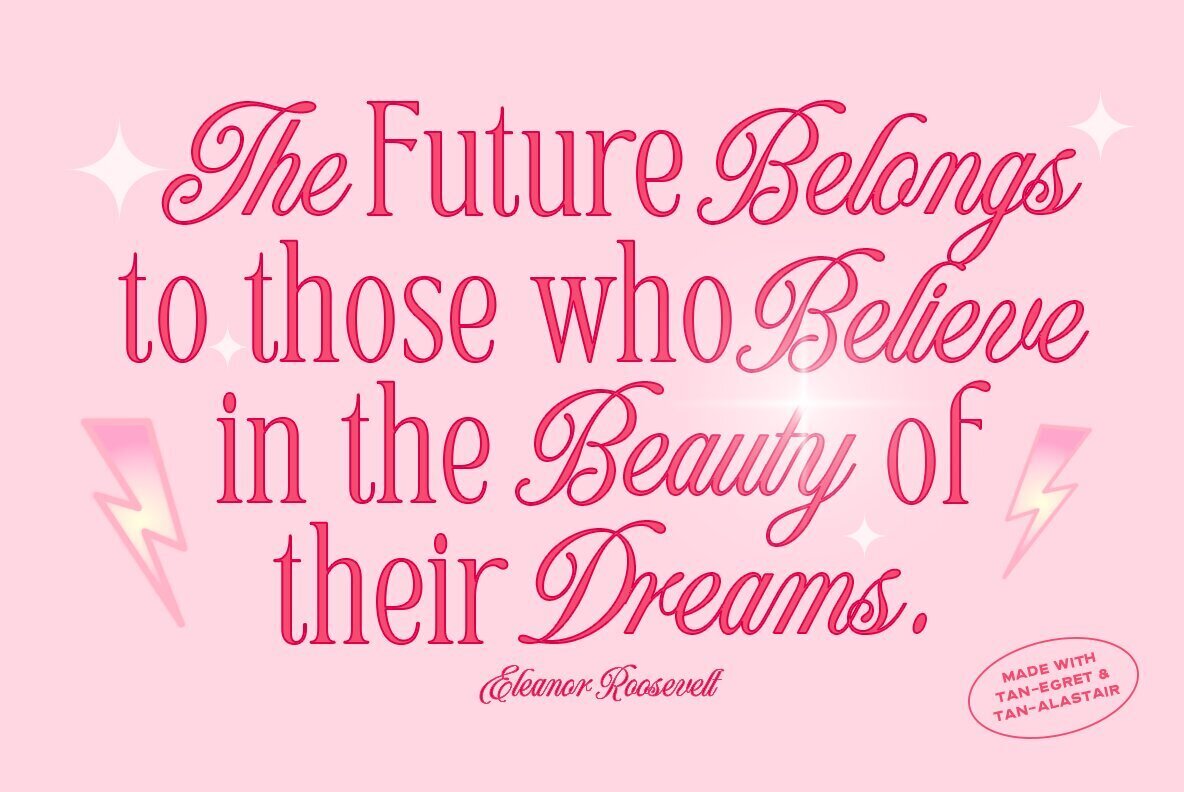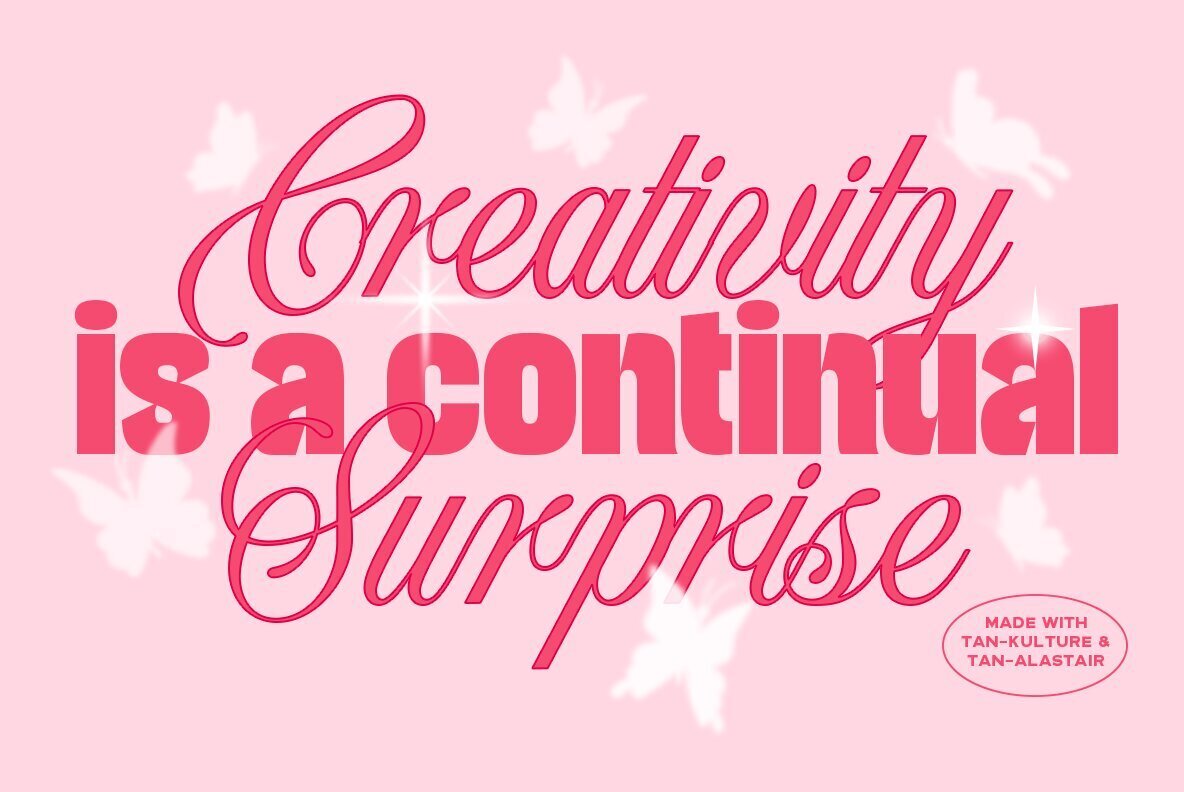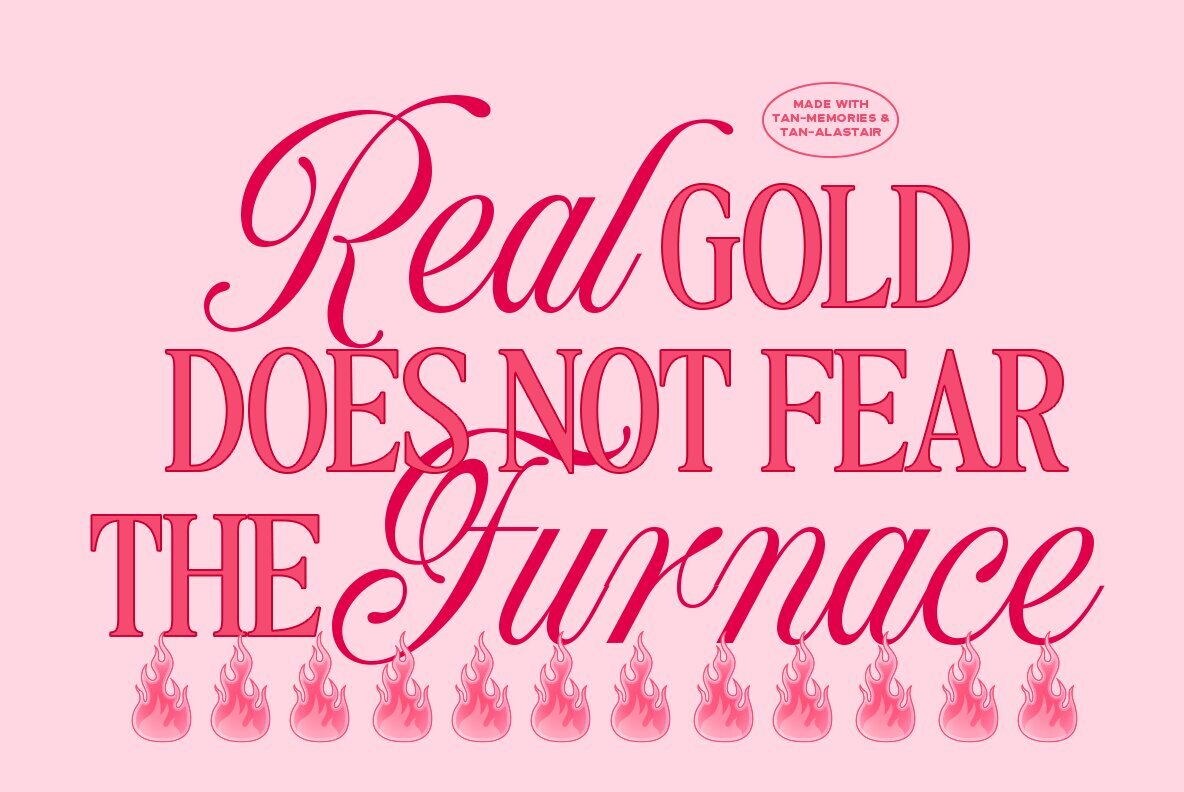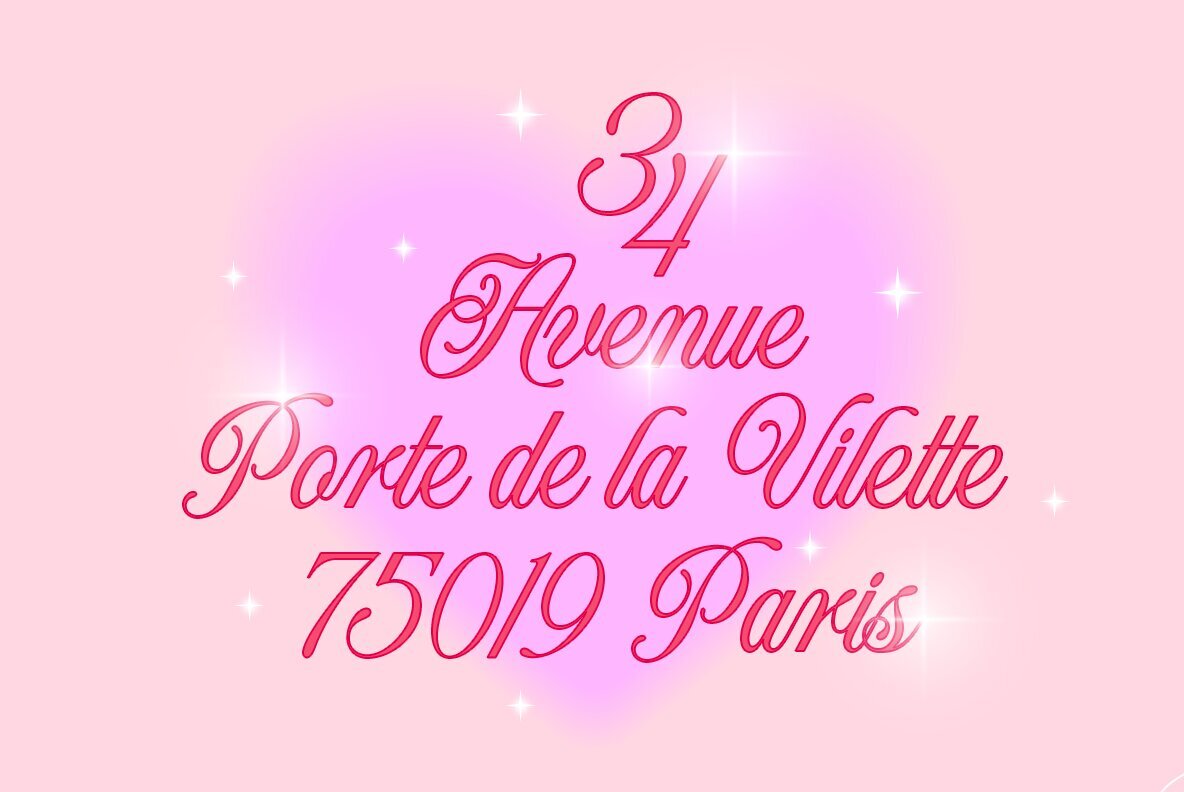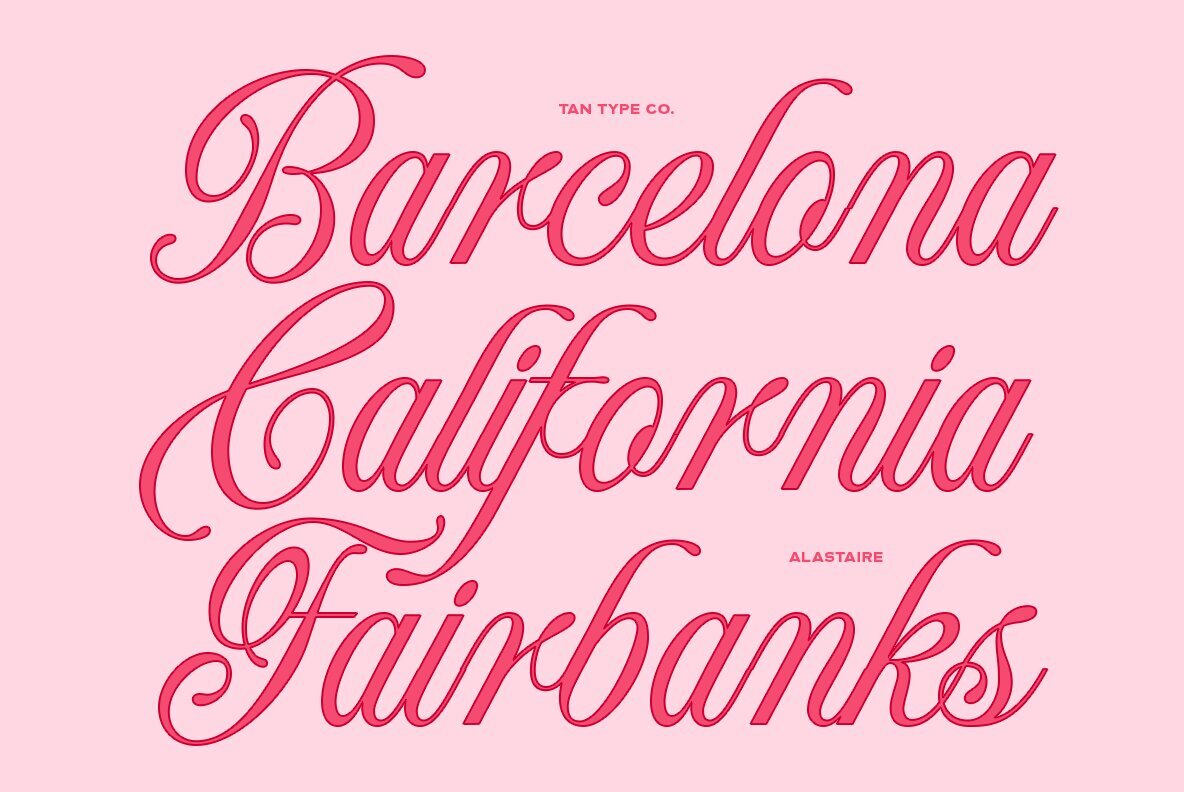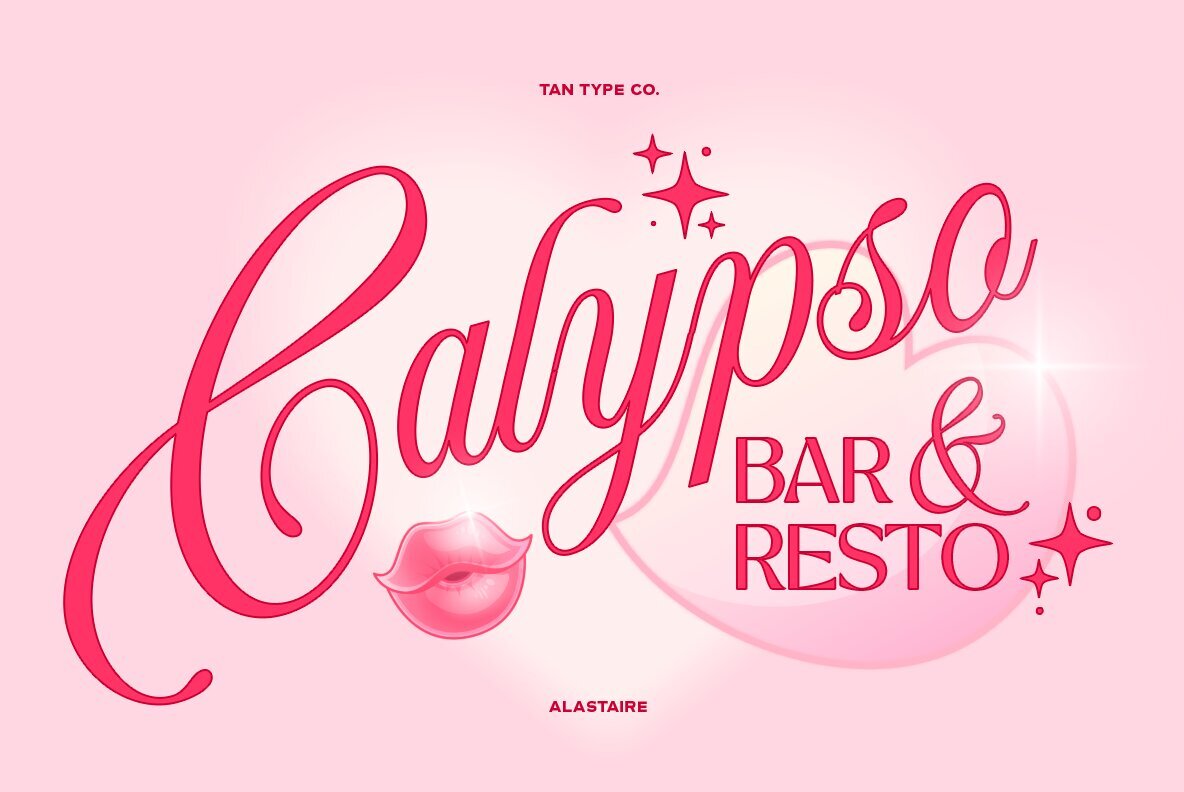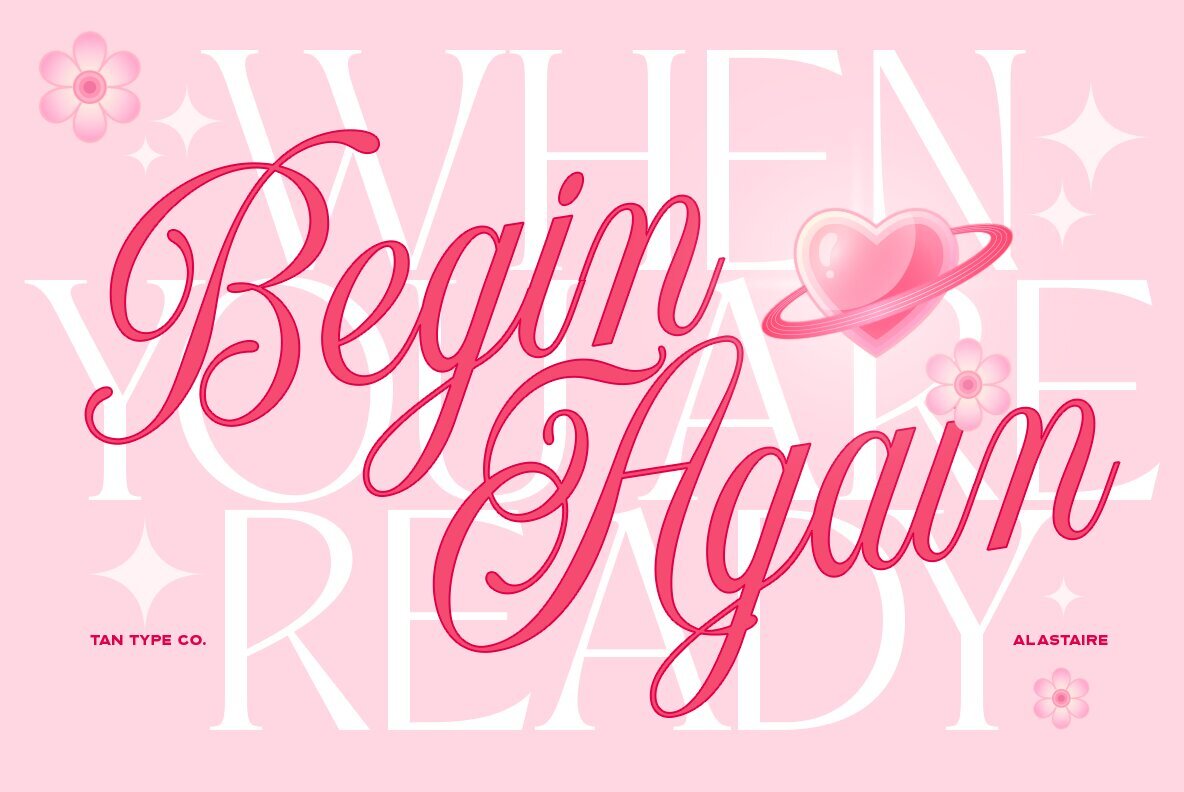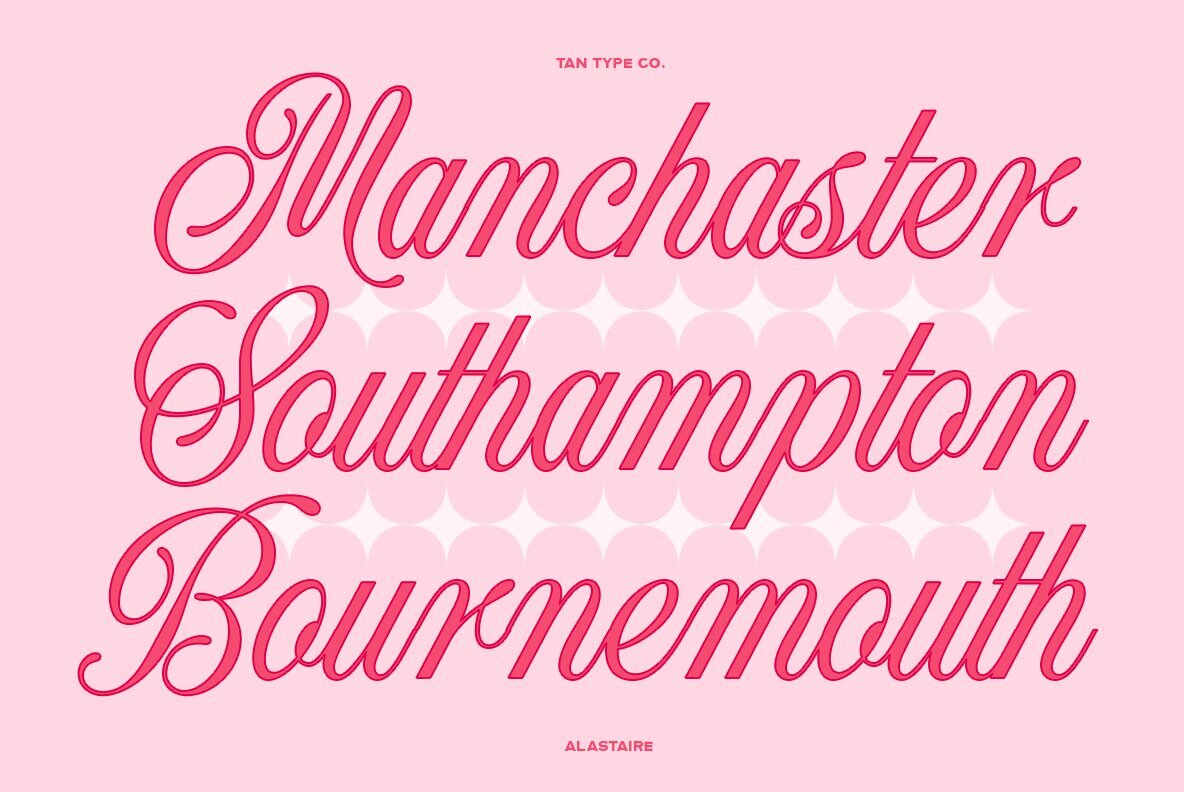
TAN ALASTAIRE Font
TAN - ALASTAIRE is a classy display script inspired by the romantics era. It’s unique on its own and can be perfectly paired with most of our typefaces. A sweet compliment to a serif or sans serif, either a bold one or subtler ones. It also support multilingual.